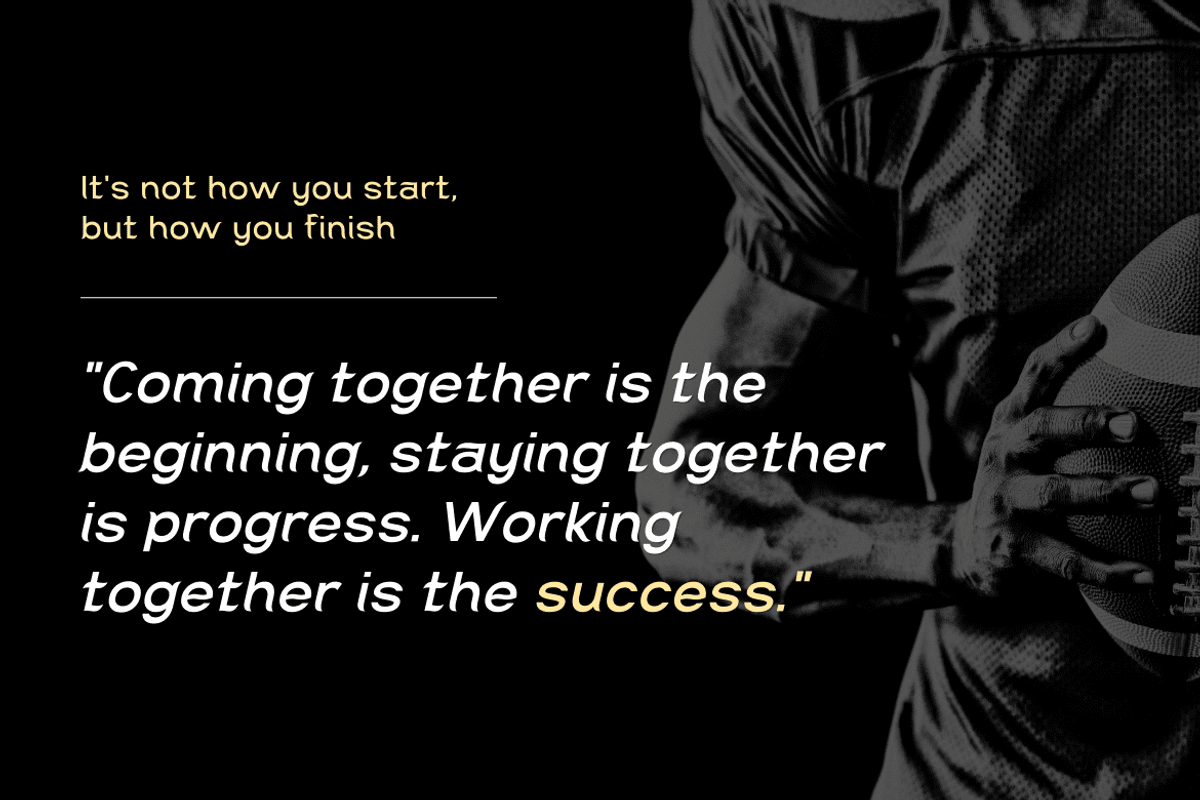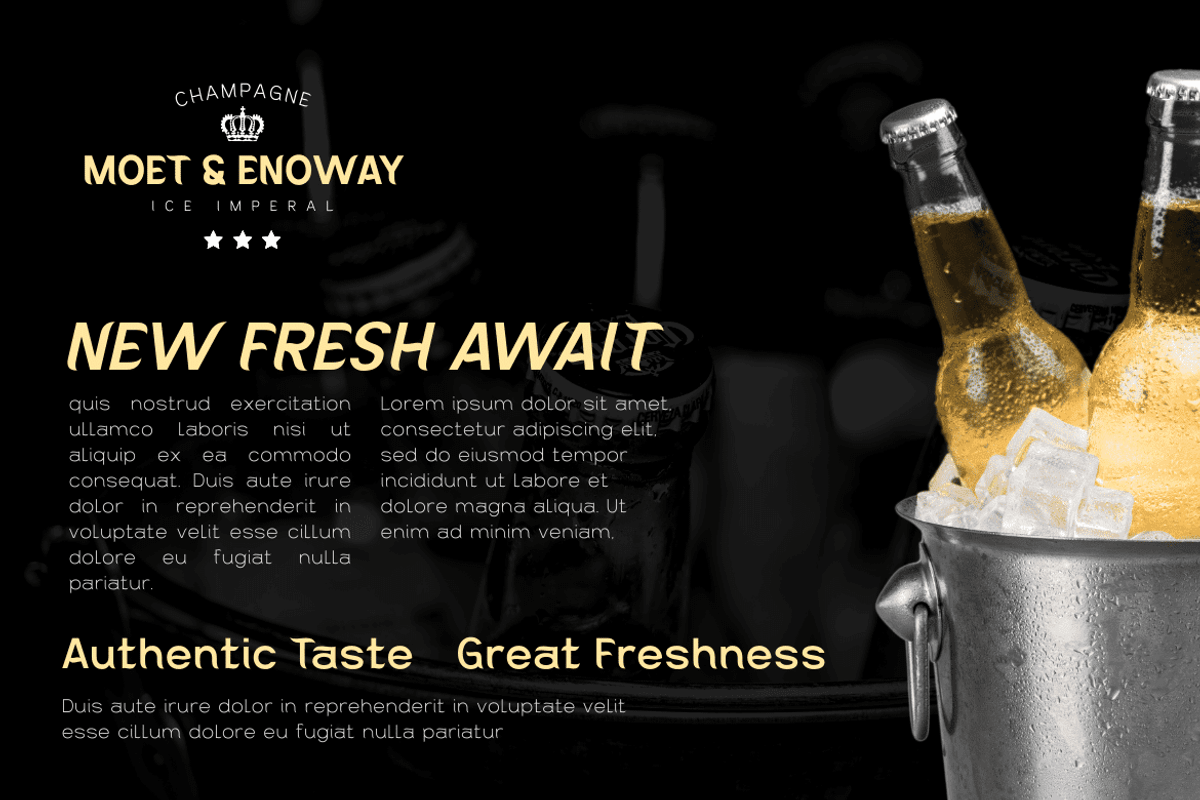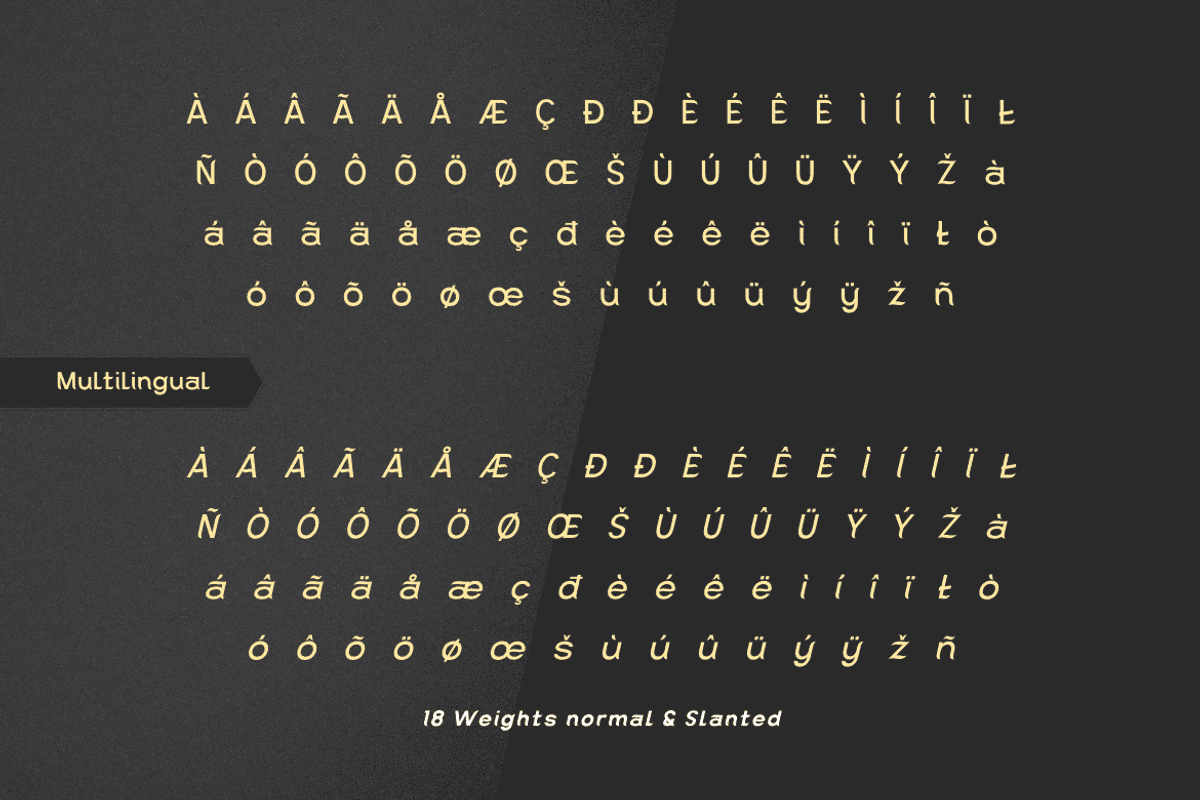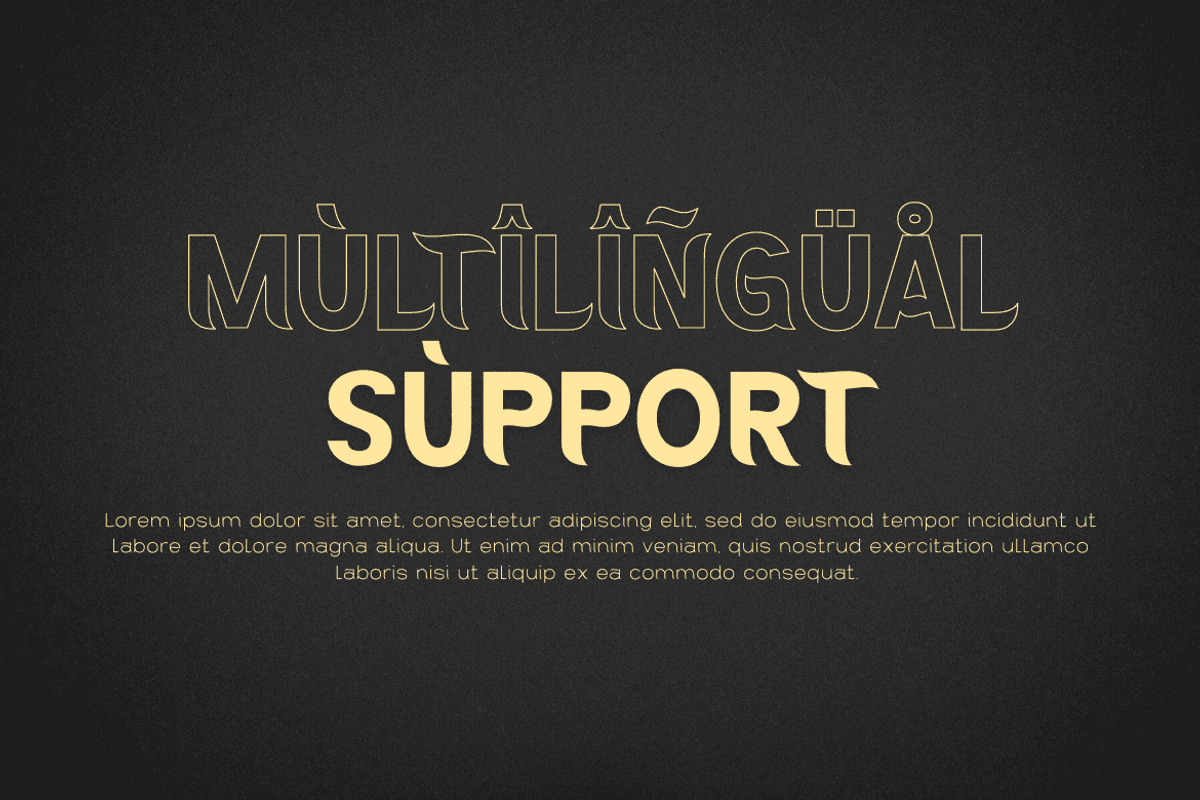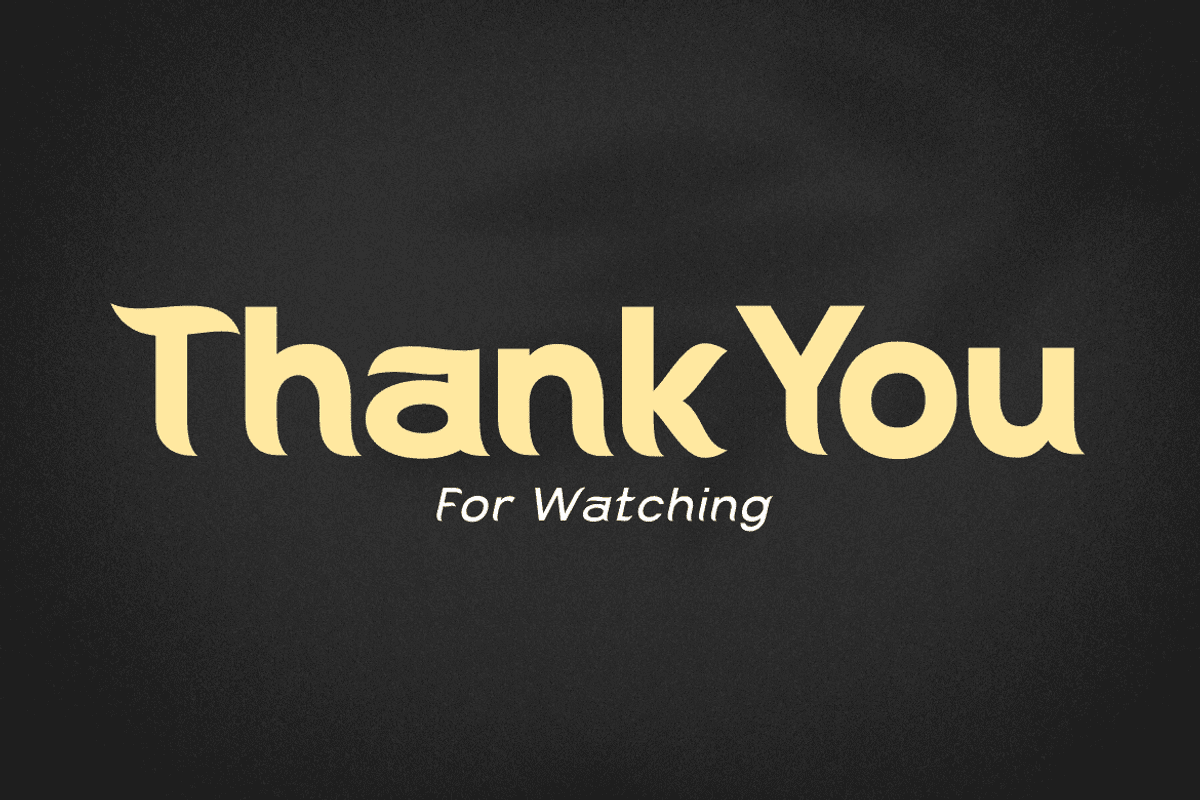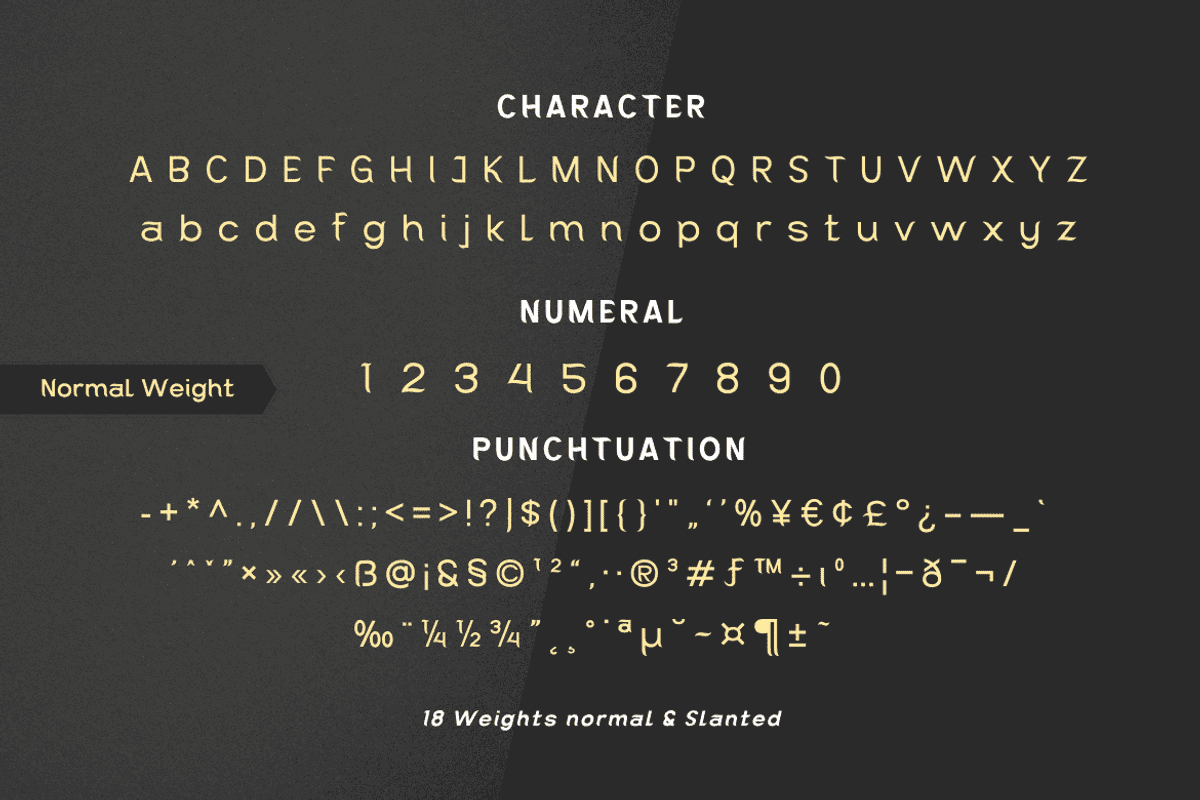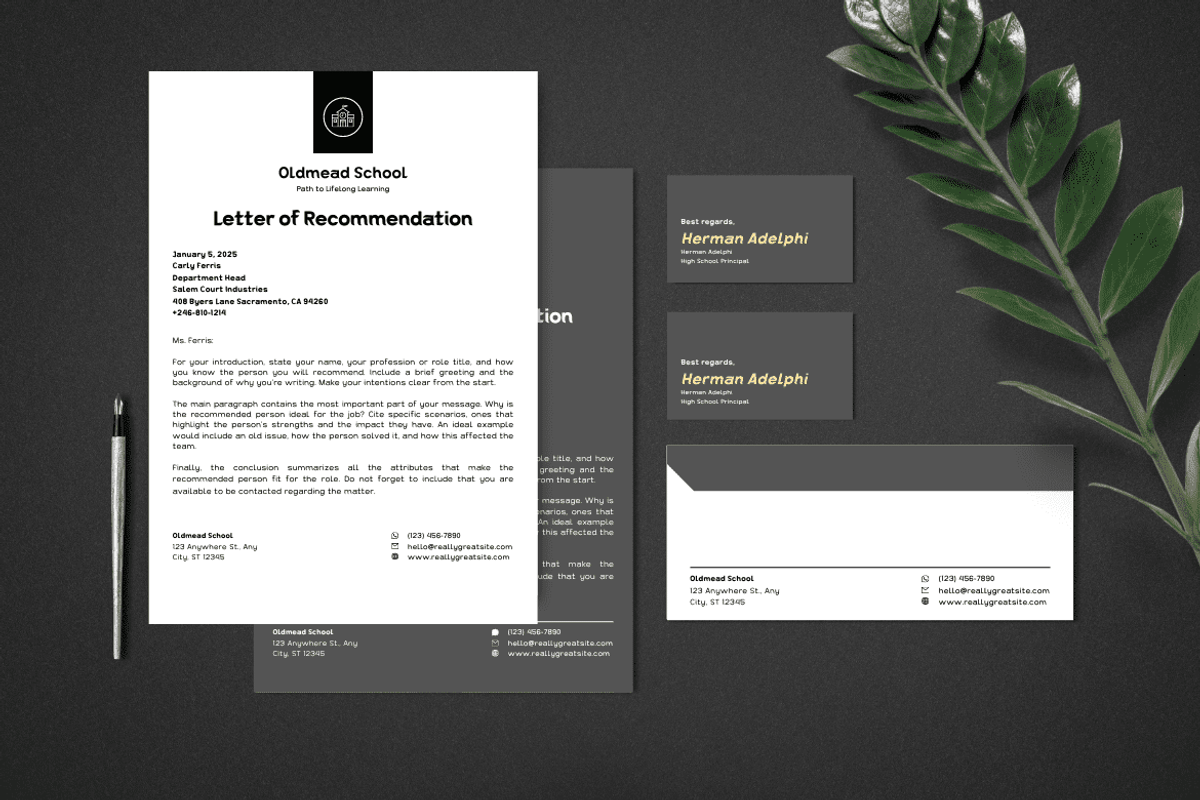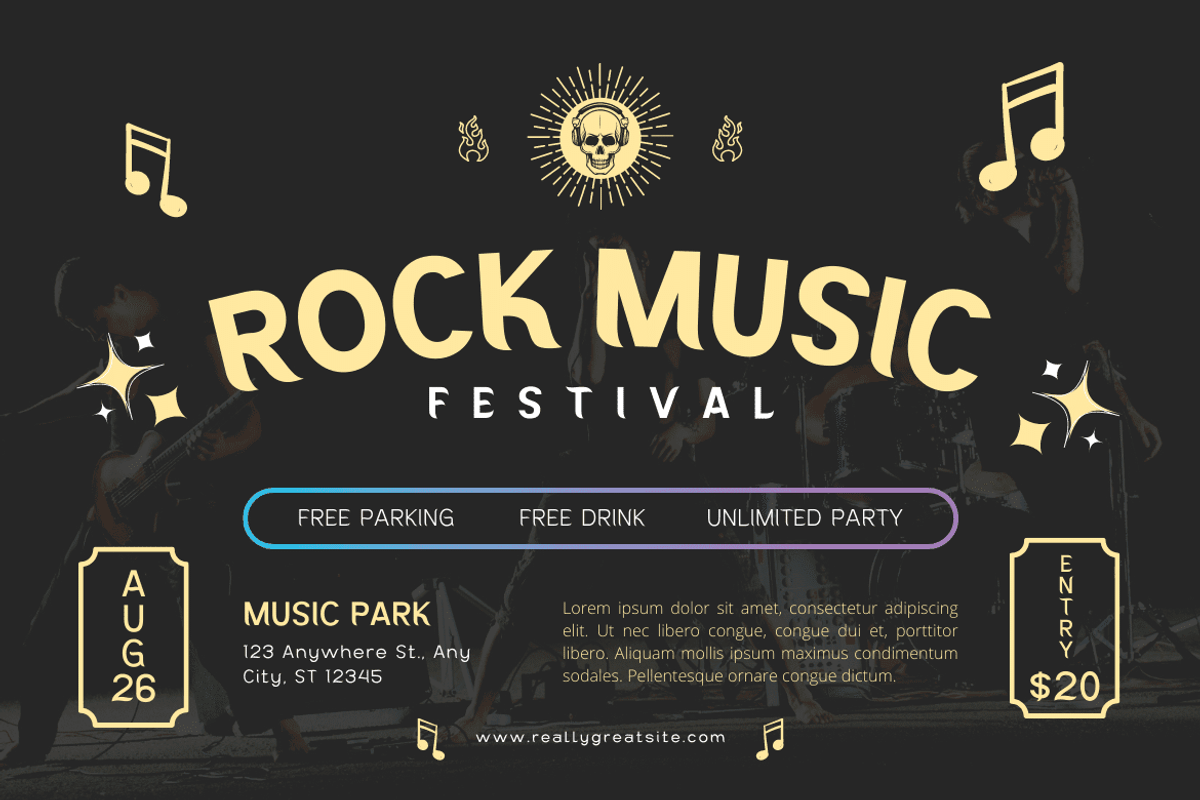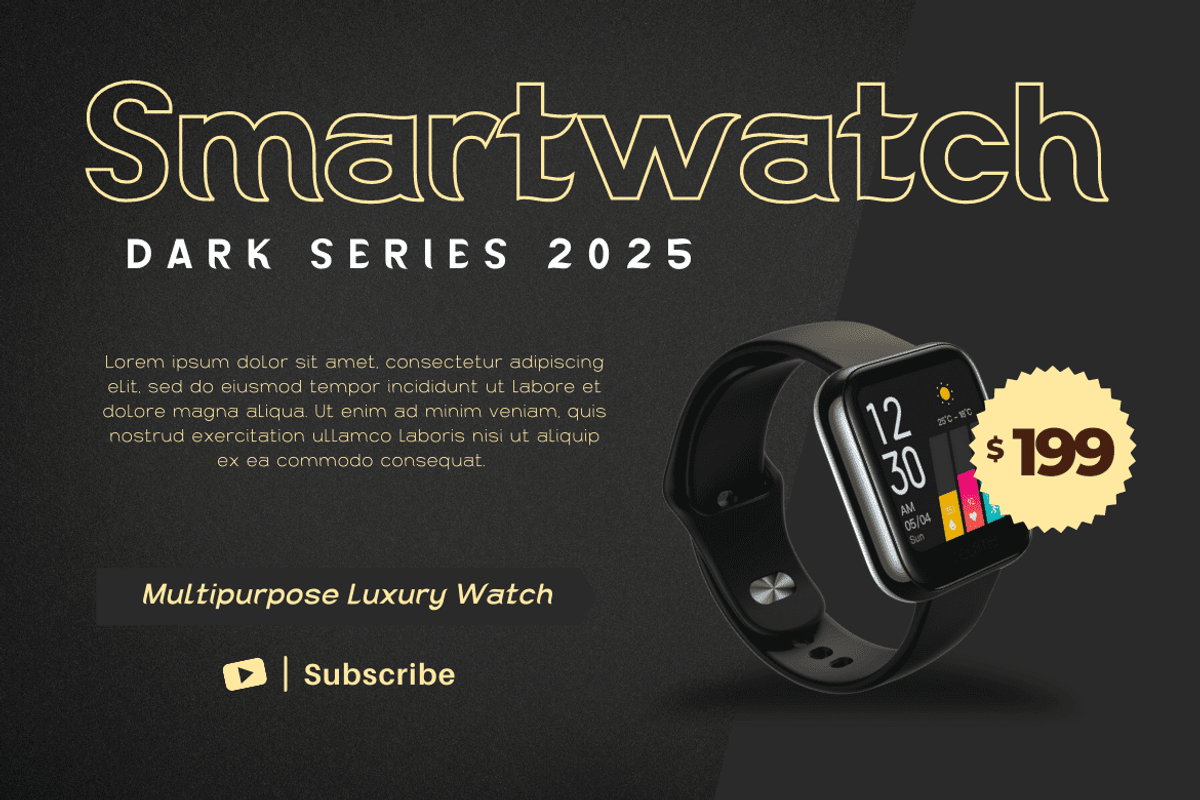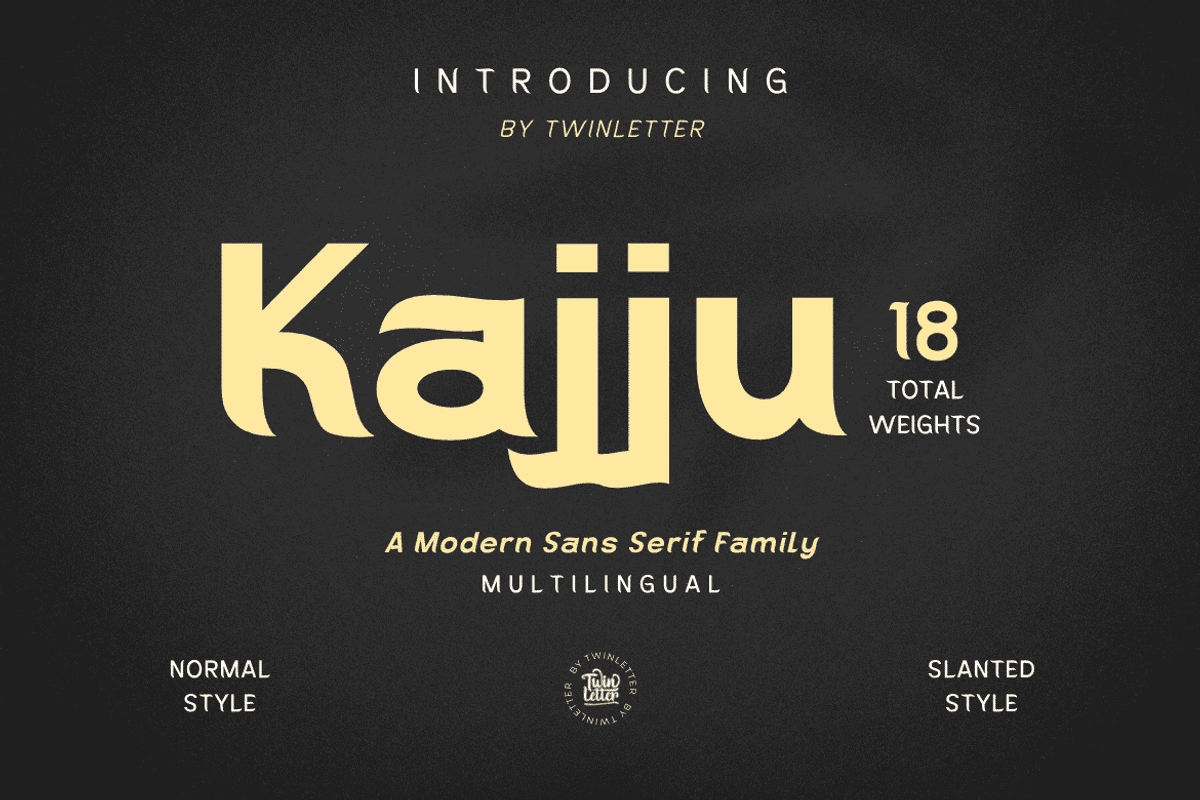
Kajju
Introducing Kajju, a premium font family designed to help you create visually stunning projects of any kind. Kajju San Serif comes in 18 different styles and has everything you need for your design projects. This is an all-in-one font pack with a wide variety of font styles to choose from. So whatever your needs, Kajju can do the job!
of course, your various design projects will be perfect and extraordinary if you use this font because this font is equipped with a font family, both for titles and subtitles and sentence text, start using our fonts for your extraordinary projects.